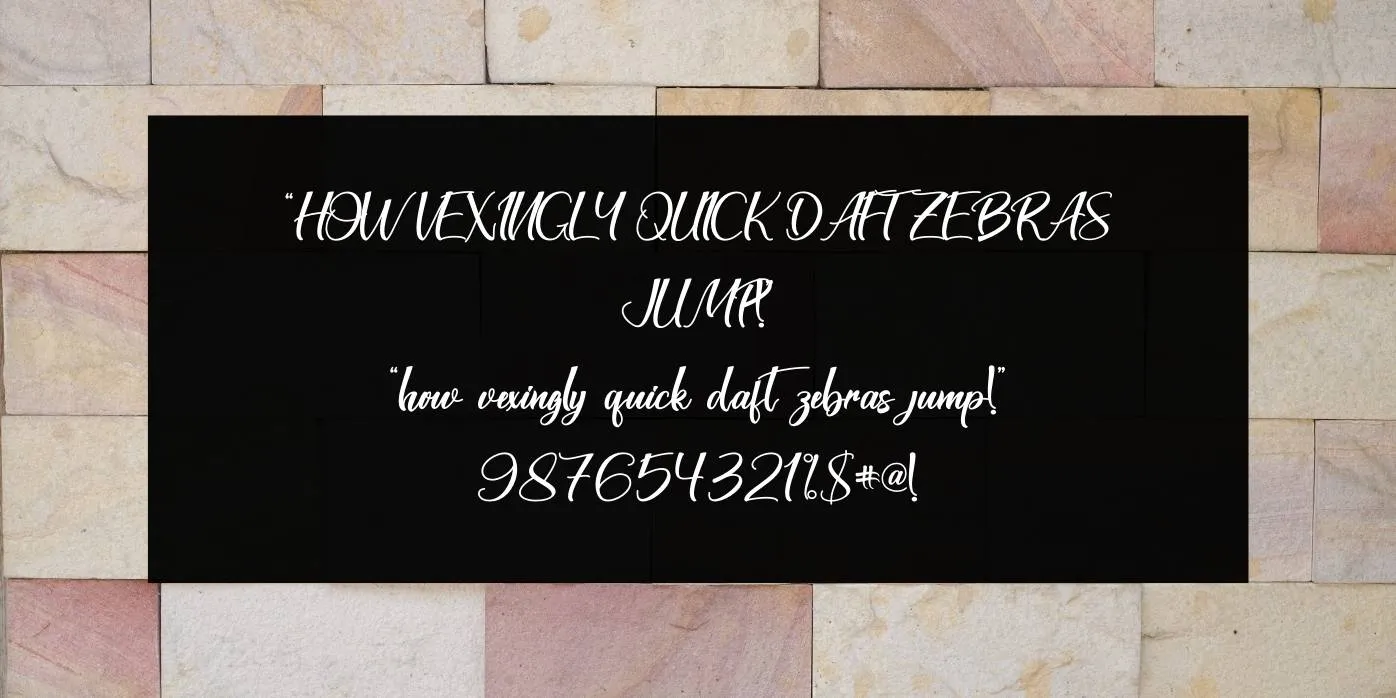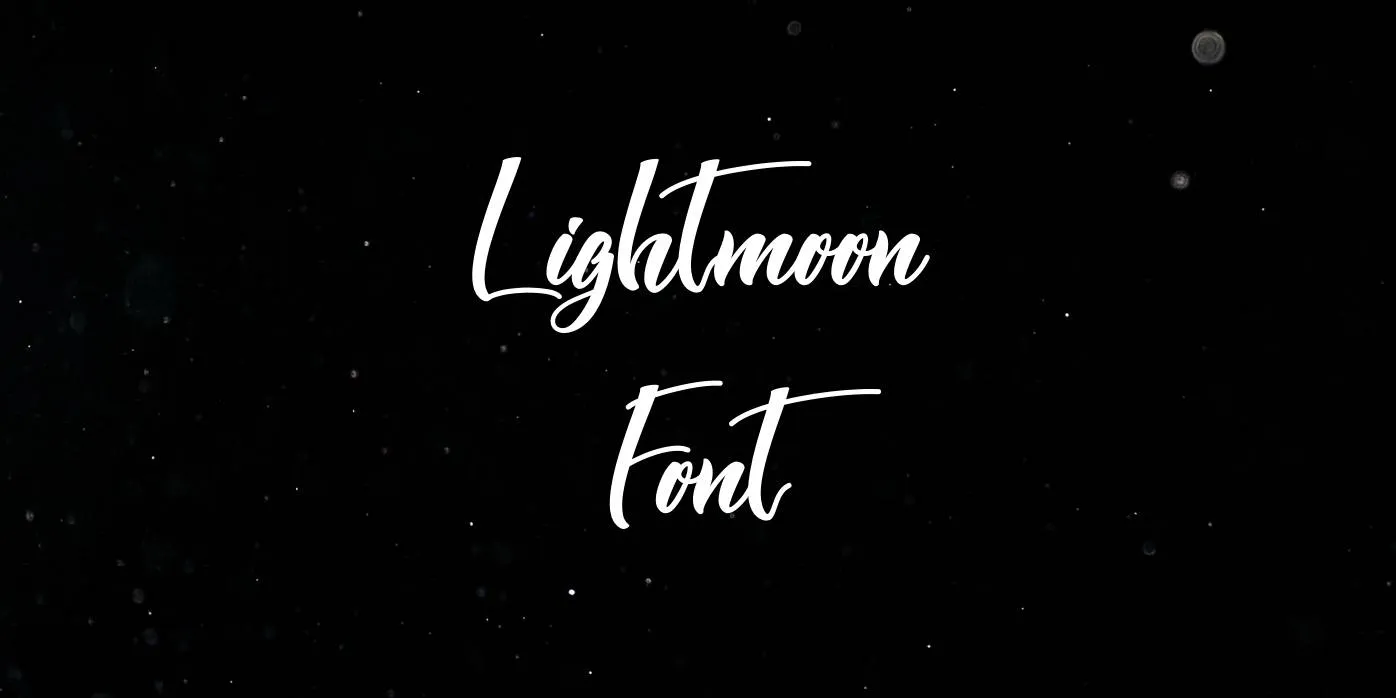
Lightmoon Font
Lightmoon Font is a beautiful and unique script font that was created by Alif Ryan Zulfikar. It is perfect for any project that requires a touch of elegance and class. This font was inspired by the work of an unknown artist who goes by the name of Lightmoon. The artist’s work is characterized by its elegant and flowing lines, as well as its use of light and dark colors.
Alif Ryan Zulfikar took these characteristics and created a font that is both stylish and easy to read. This font is available in both regular and italic styles. It also includes a full character set, which includes all the letters of the alphabet, as well as numbers and symbols. This makes it perfect for any project that requires a complete set of characters.
Lightmoon Font is a great choice for any project that requires a touch of elegance and class. It is easy to read and stylish, and it includes a full character set. It has a condensed texture style and has a pairing personality with other handwritten style typefaces just like sesame font.